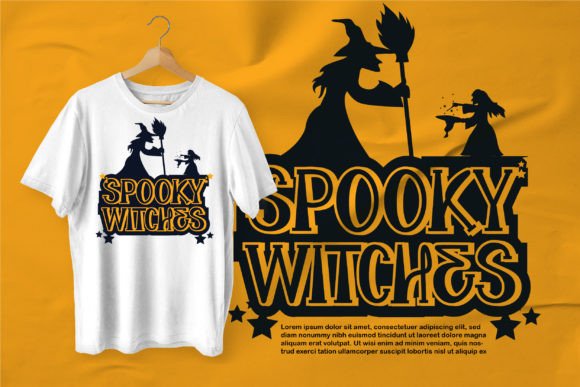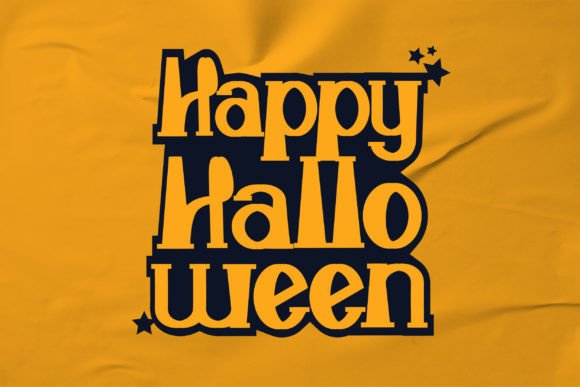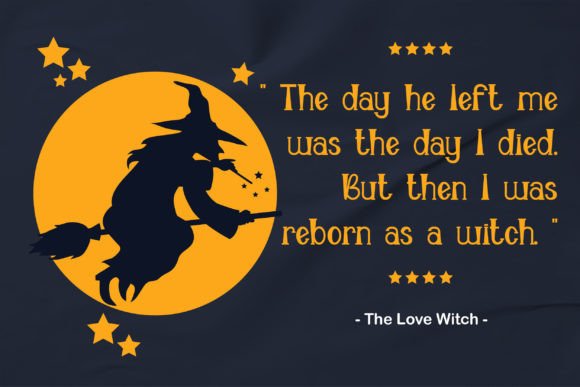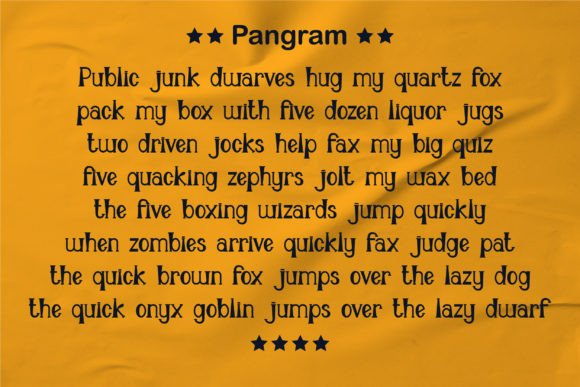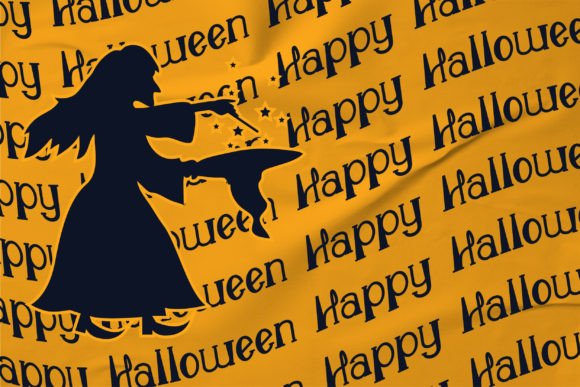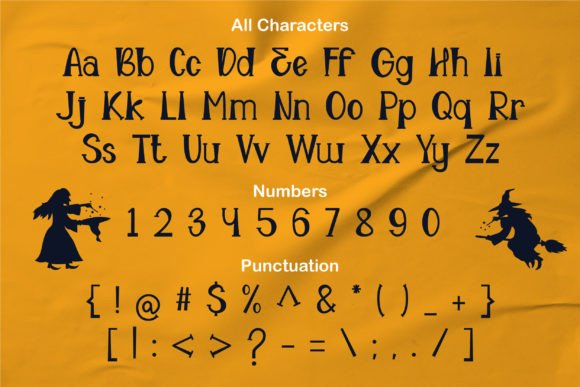
Introducing Halloween Stick Font: The Ultimate Display Font for Spooky and Fun Designs
Are you looking for a font that can add a touch of spookiness and fun to your designs? Look no further than the Halloween Stick Font! This display font is perfect for creating spectacular designs that will make your Halloween flyers, greetings, party decorations, and more stand out from the crowd.
What is Halloween Stick Font?
Halloween Stick Font is a fresh and unique typeface specifically designed for Halloween-themed designs. Its stick-like design gives it a playful and eerie feel, making it perfect for creating eye-catching designs that will capture the attention of your audience.
Features of Halloween Stick Font
- Unique Design: The Halloween Stick Font has a one-of-a-kind design that will make your designs stand out from the rest.
- Display Font: This font is specifically designed as a display font, making it perfect for headlines, titles, and other attention-grabbing elements.
- Versatile: The Halloween Stick Font is not just limited to Halloween designs. You can use it for Easter, Christmas, party decorations, and other fun projects.
Uses of Halloween Stick Font
The Halloween Stick Font is perfect for a variety of designs, including:
- Halloween Flyers: Create spooky and fun flyers that will grab the attention of your audience.
- Halloween Greetings: Add a personal touch to your Halloween greetings with this unique font.
- Party Decorations: Use the Halloween Stick Font to create eye-catching party decorations that will make your party stand out.
- Easter and Christmas Designs: This font is not just limited to Halloween designs. You can use it to create fun and festive designs for Easter and Christmas.
| Font Name | Halloween Stick Font |
| Author | Patlot Digital.Studio |
The Halloween Stick Font is a unique and versatile display font that is perfect for creating spectacular designs for Halloween, Easter, Christmas, and more. Its fresh and unique design makes it a great addition to your fun projects. With its ease of use and versatility, this font is perfect for designers and crafters of all levels.